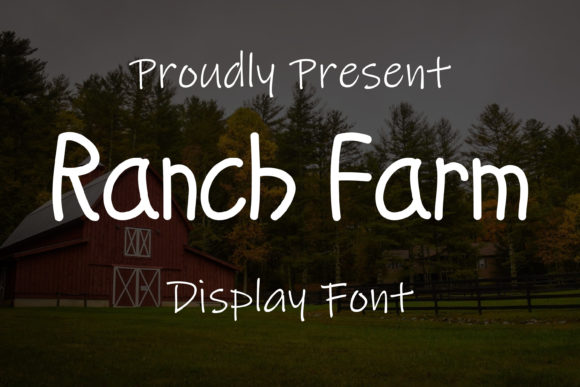
In the vast digital realm, where visual aesthetics reign supreme, Ranch Farm Font emerges as a beacon of creativity, a font family that embodies the essence of charm and adaptability. With its graceful and whimsical curves, Ranch Farm Font is the perfect companion for those seeking to infuse their designs with a touch of warmth and personality.
Step into the world of fashion logos and let Ranch Farm Font guide you towards captivating designs that leave a lasting impression. Whether you're a seasoned designer or just starting your creative journey, this font family will effortlessly elevate your work to new heights of sophistication and uniqueness.
Ranch Farm Font's script style is a testament to the timeless beauty of handwritten letters. Its relaxed and casual nature lends itself perfectly to a wide spectrum of design aesthetics, from vintage and retro to modern and contemporary. With Ranch Farm Font, your designs will exude an air of effortless elegance, capturing the attention of your audience and leaving them enchanted.
Unleash your creativity and explore the endless variations that Ranch Farm Font has to offer. Experiment with different colors, sizes, and effects to create designs that truly reflect your unique style and vision. Let your imagination run wild as you discover the myriad possibilities that await you with this versatile font family.
So, embark on this creative adventure with Ranch Farm Font as your trusted companion. Let its friendly and adaptable nature guide you towards designs that speak to the heart and ignite the imagination. Embrace the endless possibilities that await you and witness the transformative power of Ranch Farm Font.